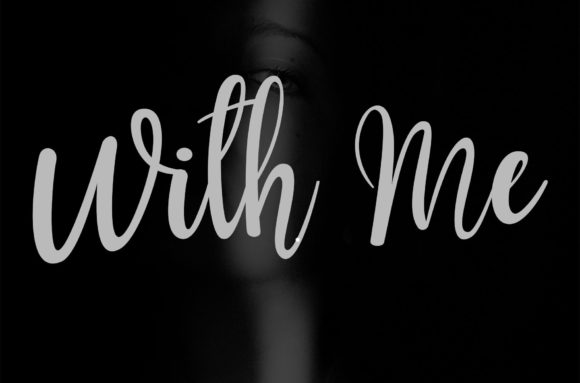
Step into a world of captivating elegance with the With Me Font family, a mesmerizing script that effortlessly elevates your designs. This ethereal creation by the renowned Sansana is an ode to timeless beauty, meticulously crafted to leave an unforgettable mark.
With Me's delicate curves and flowing lines dance across the page like a graceful ballet, captivating the eye with its effortless charm. Its versatility knows no bounds, lending itself seamlessly to a multitude of design endeavors. Whether you're crafting a captivating logo that commands attention or infusing your website with an air of sophistication, With Me transforms your vision into a breathtaking reality.
Escape the ordinary and embrace the extraordinary with With Me. Its enchanting presence adds a touch of magic to every project, evoking emotions and sparking imaginations. Let its whimsical strokes ignite your creativity and transport your designs to realms of pure enchantment.
Beyond its aesthetic brilliance, With Me is a font of unparalleled functionality. Its crisp, clean lines ensure flawless readability across all platforms, making it the perfect choice for both print and digital applications. Experience the joy of effortless elegance as With Me effortlessly enhances your designs, leaving a lasting impression on your audience.
Don't settle for mediocre when you can elevate your creations to new heights with With Me. This exceptional script is the epitome of grace and sophistication, the perfect addition to your font collection. Its timeless allure will captivate hearts and inspire imaginations for years to come.
Embrace the With Me Font family today and unlock a world of design possibilities. Let its enchanting beauty elevate your projects, leaving a lasting legacy of style and elegance. Your creations deserve the very best, and With Me delivers nothing short of excellence.